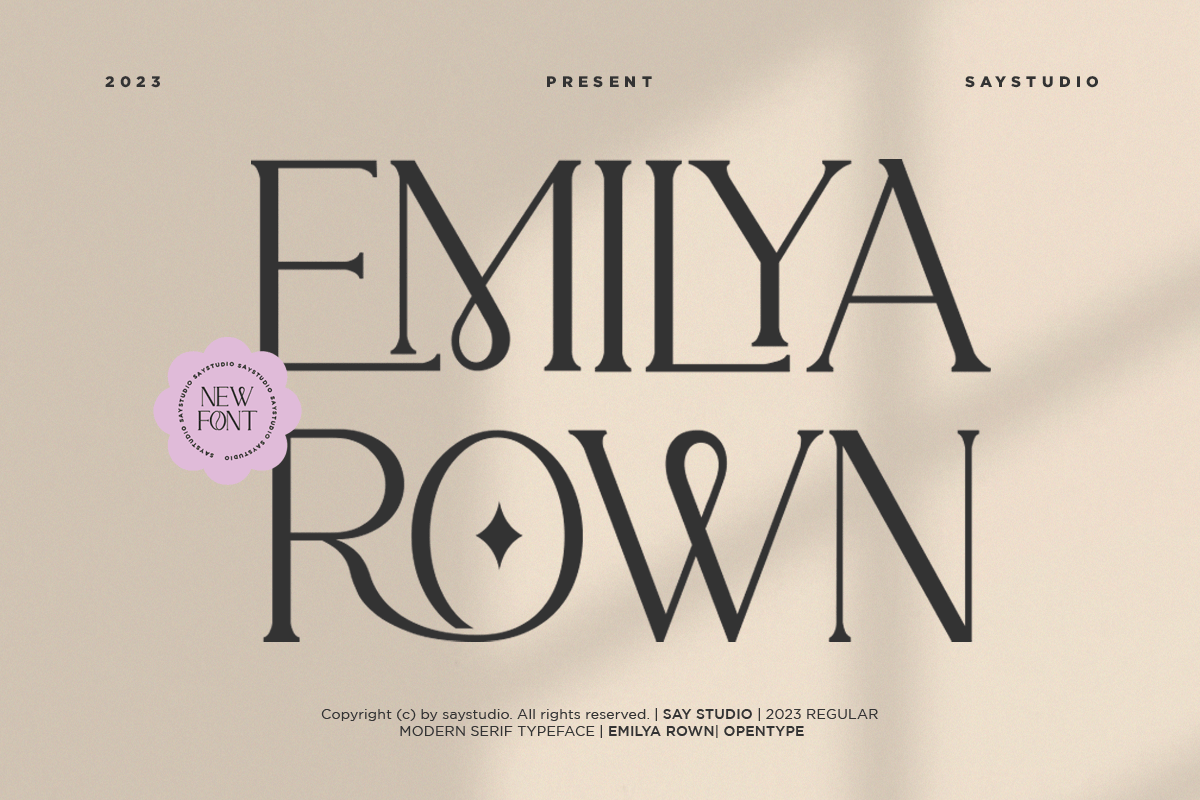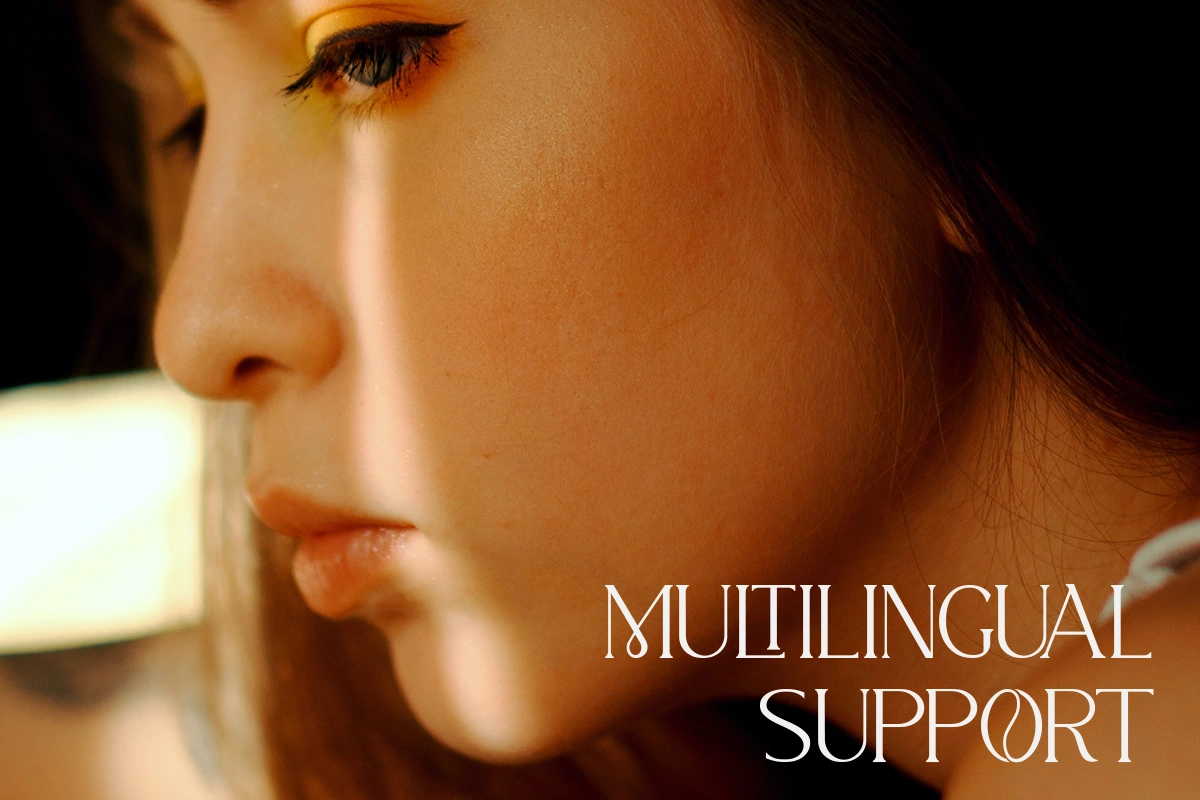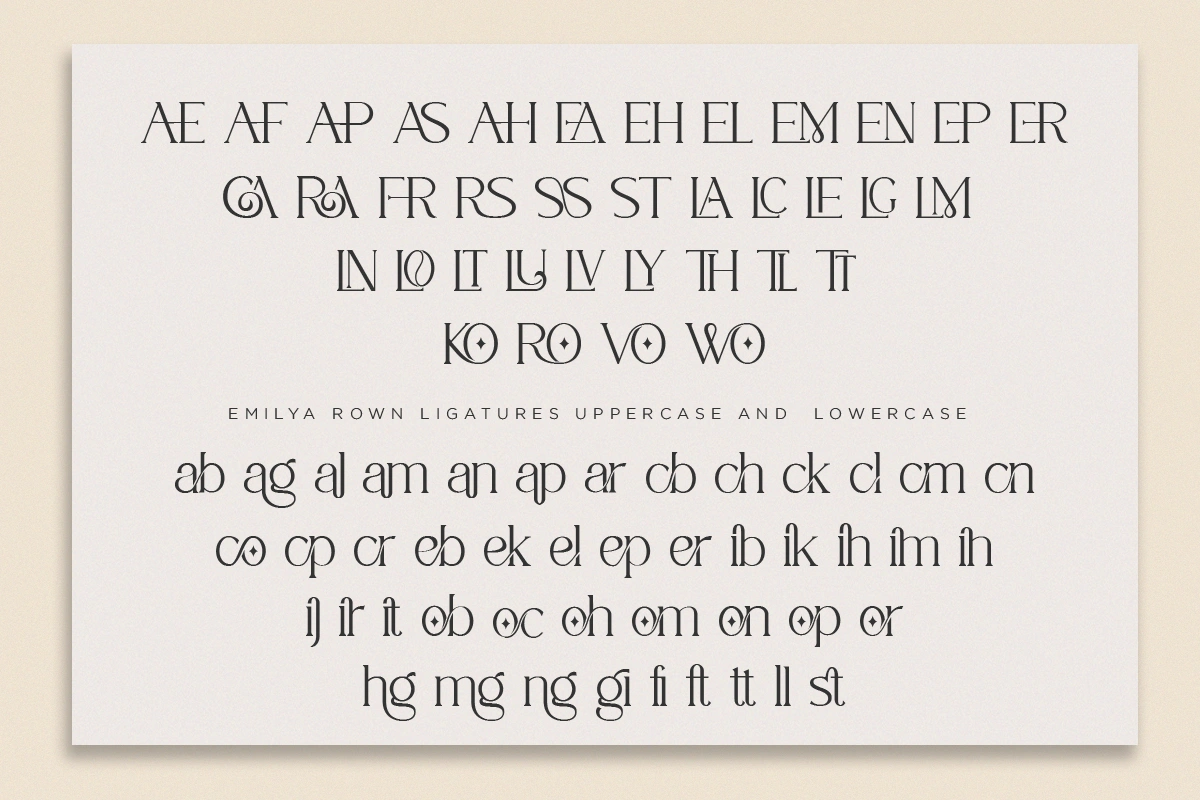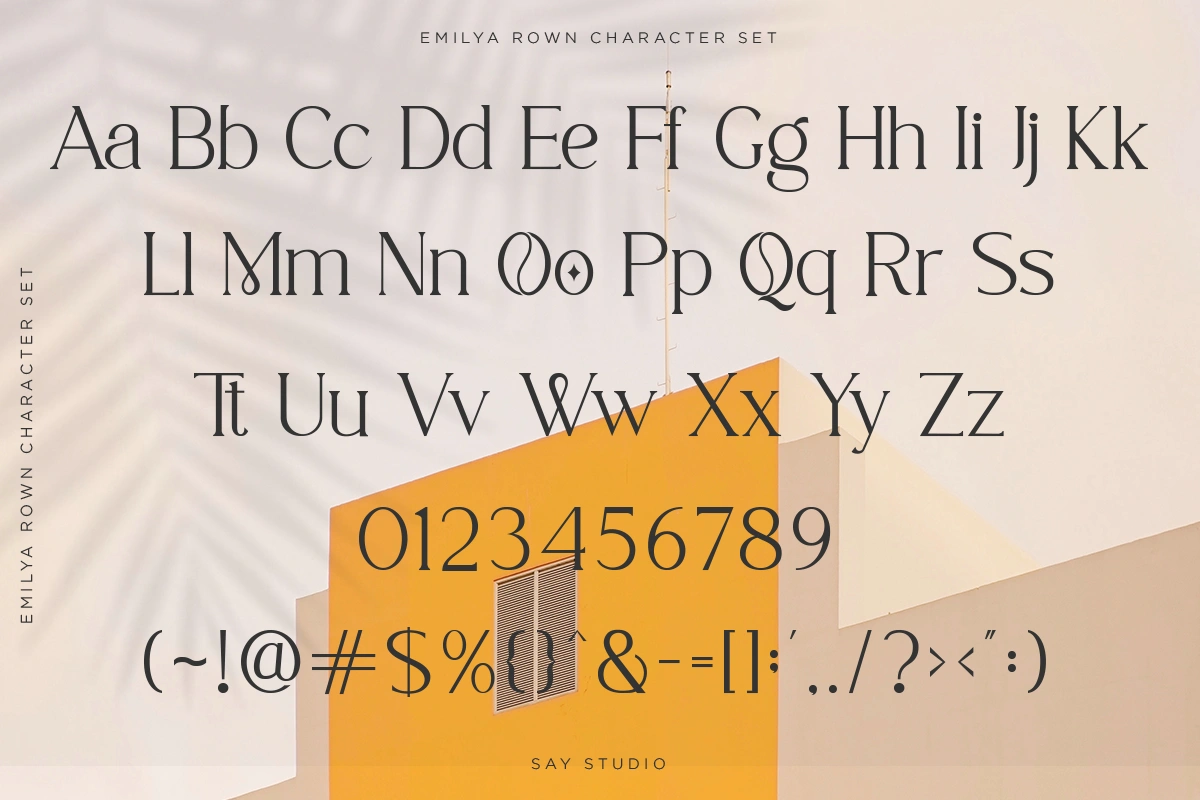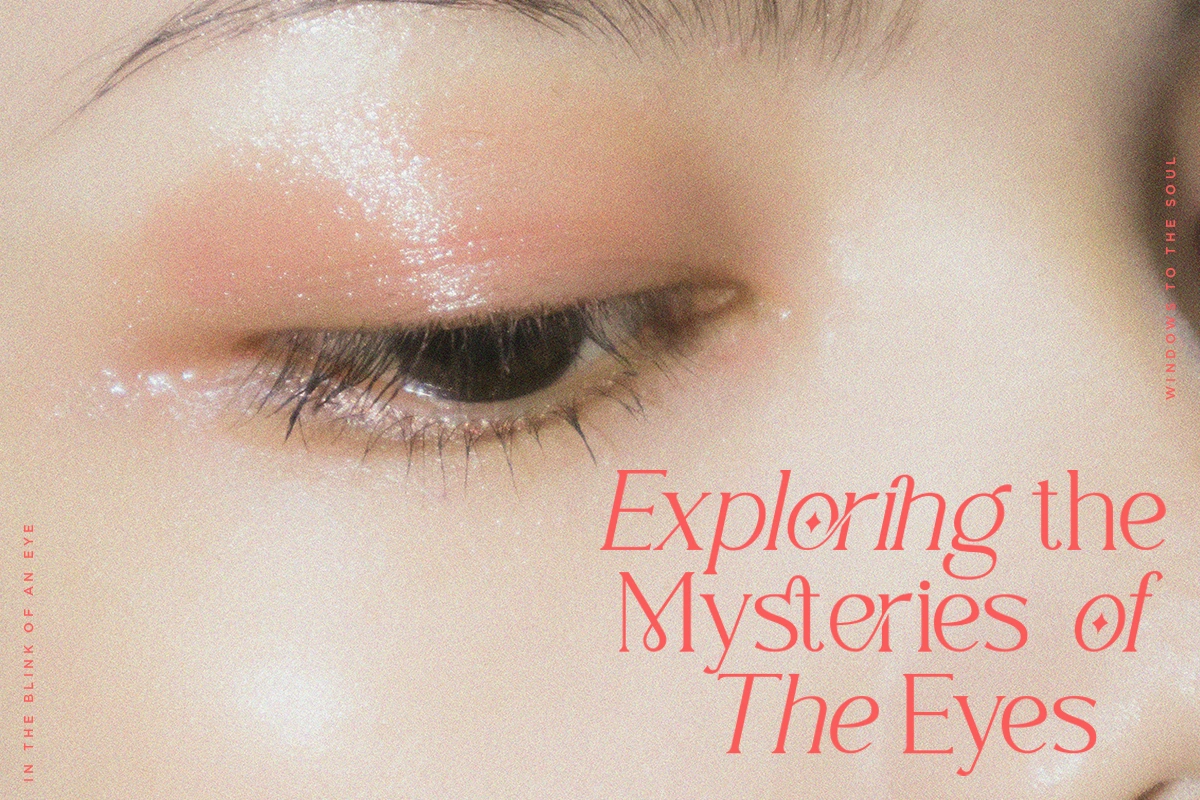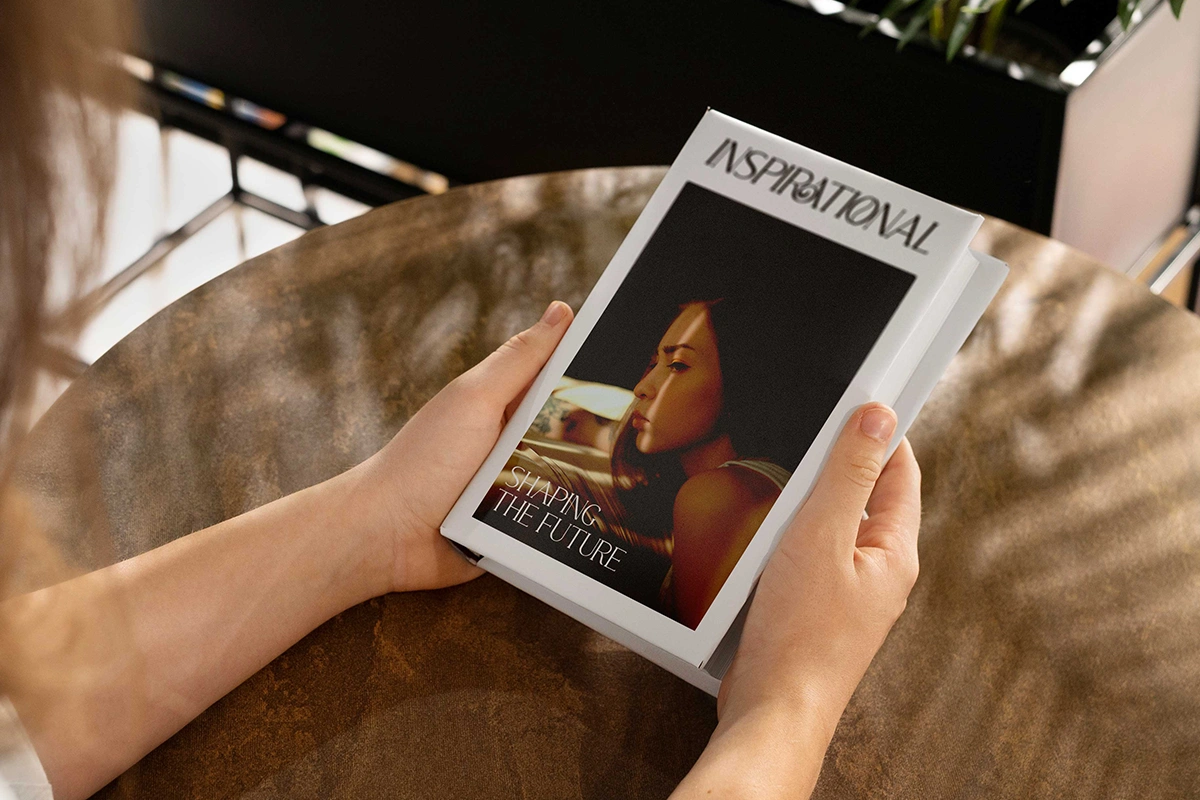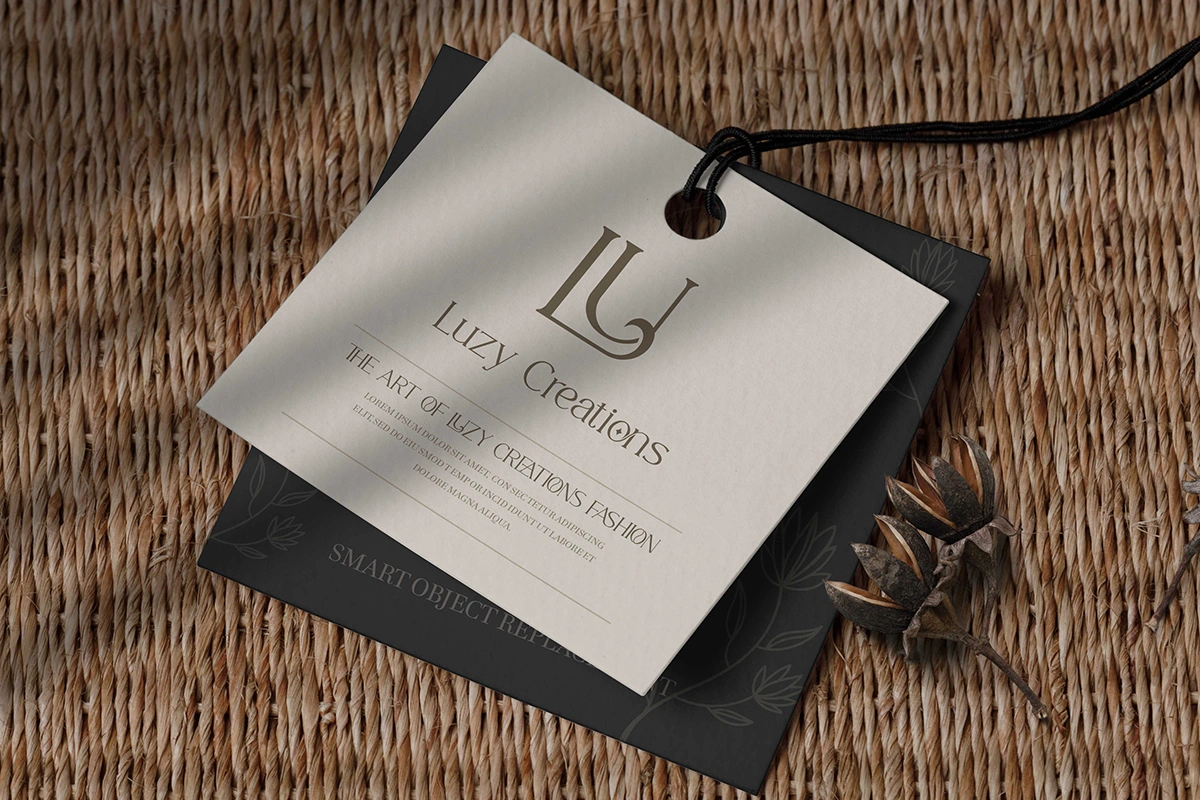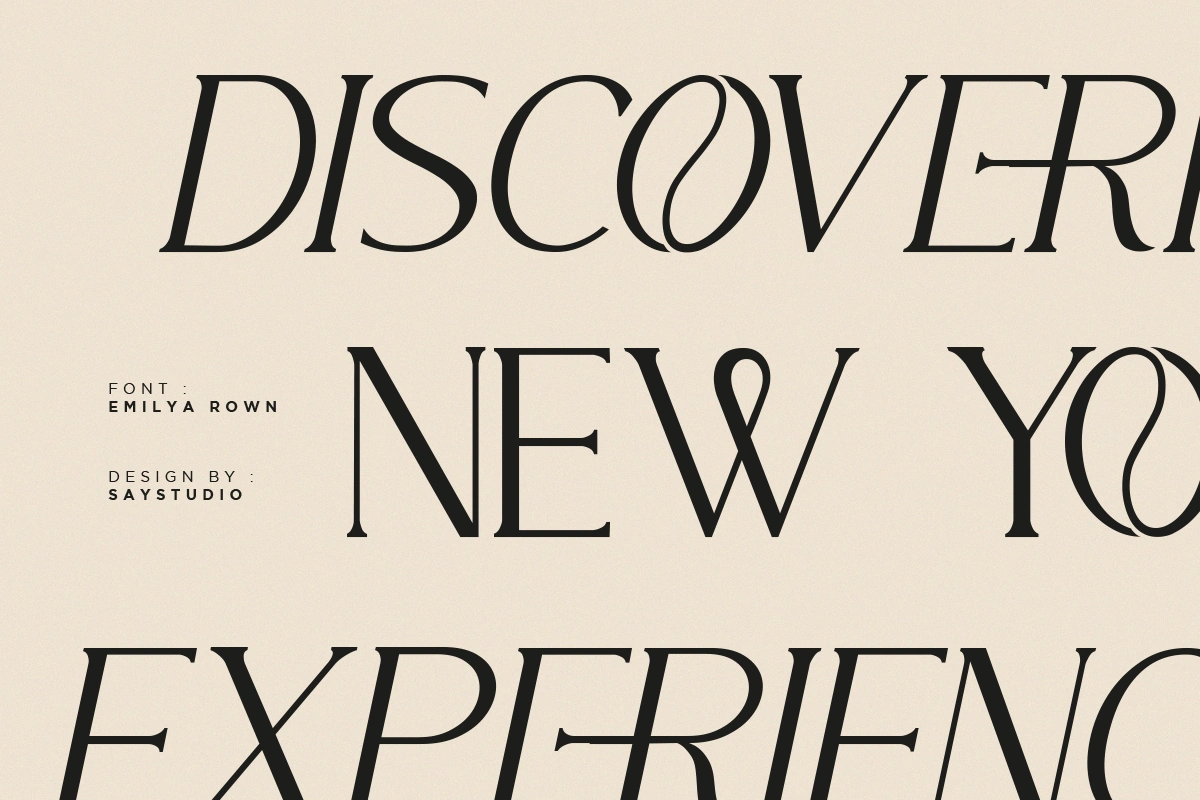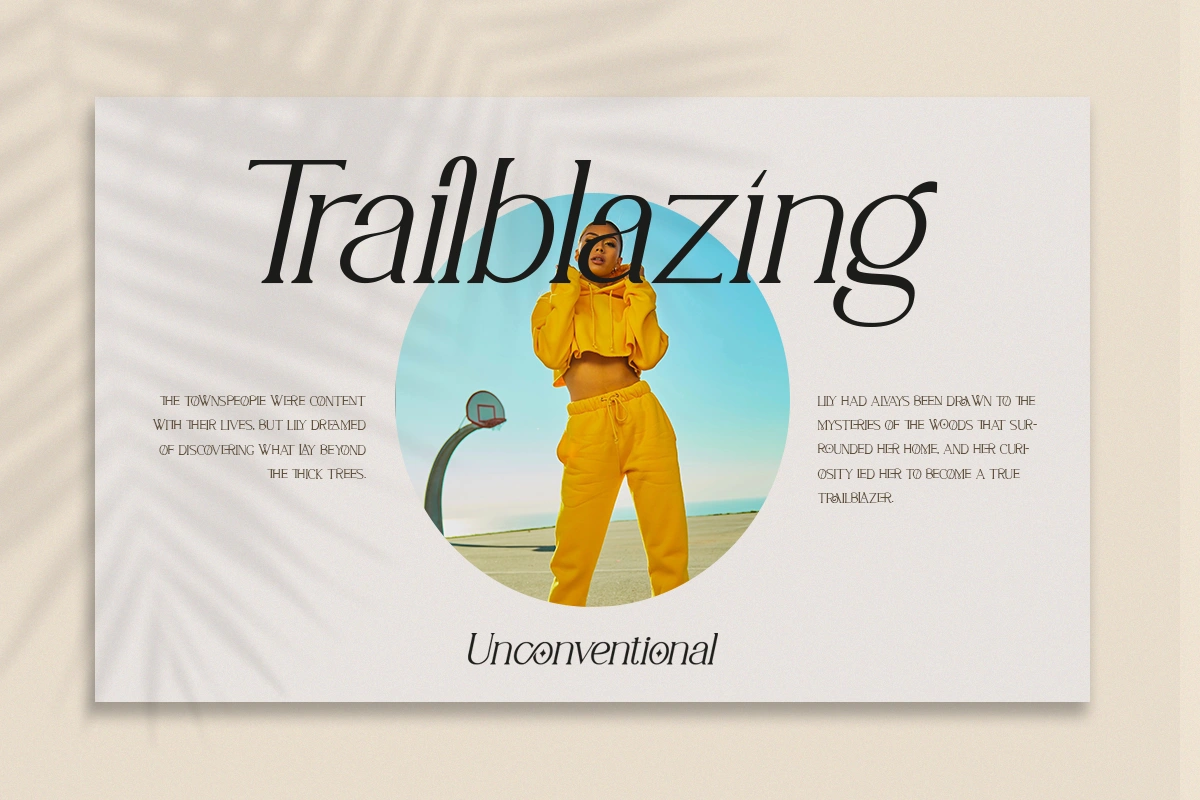
Emilya Rown – Classy Ligature Serif Font
Emilya Rown – A Classy Ligature Serif, art deco-inspired serif font with beautiful ligatures and multilingual support
Emilya Rown is a Ligature Serif Font. This wild and majestic typeface adds a dangerously elegant twist to any design. Although the inspiration for this typeface comes from the Art Deco era, Emilya Rown feels modern and contemporary. The large selection of stylistic alternations and ligatures makes this serif font extremely versatile. This is perfect for branding, magazine design, logo design, headlines, posters, packaging, cards or your wedding invitation.
FEATURES :
- Uppercase Characters
- Lowercase Characters (which are smaller versions of uppercase)
- Big range of numbers, symbols & punctuation
- Comprehensive language support